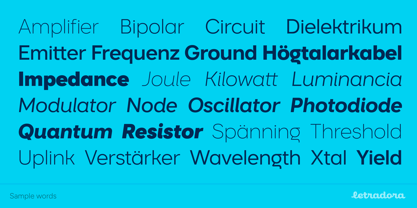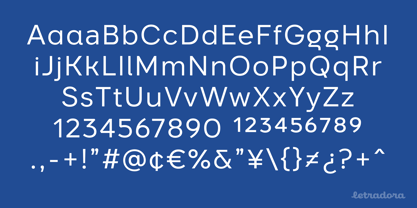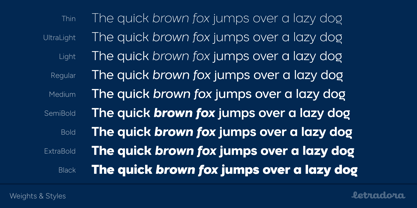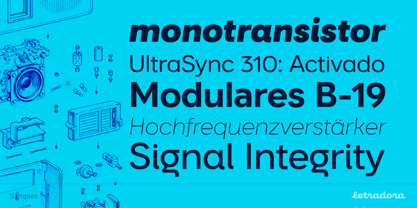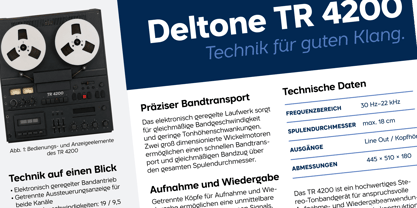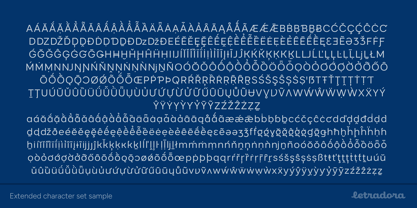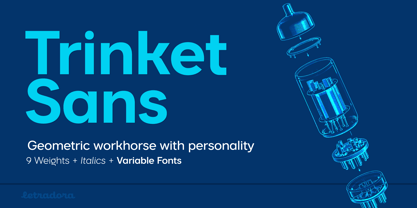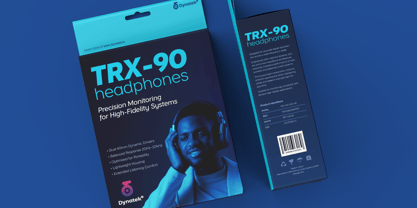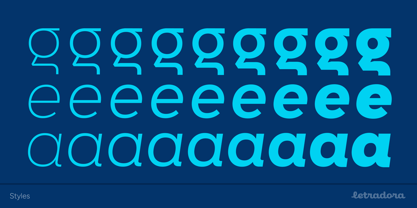
Trinket Sans
The Trinket Sans Font Family was designed by Kemie Guaida Ortega and published by Letradora. Trinket Sans contains 20 styles and family package options. More about this family
Trinket Sans is a versatile geometric sans serif with a distinctive voice. Clean shapes and carefully drawn details give it an approachable character without compromising clarity, making it equally at home in display typography, editorial work, branding and everyday text.
Designed as a companion to Trinket, it shares the original family’s proportions and personality while replacing its expressive ink traps with smoother, more conventional joins. The two families can work independently or together as a broader typographic system.